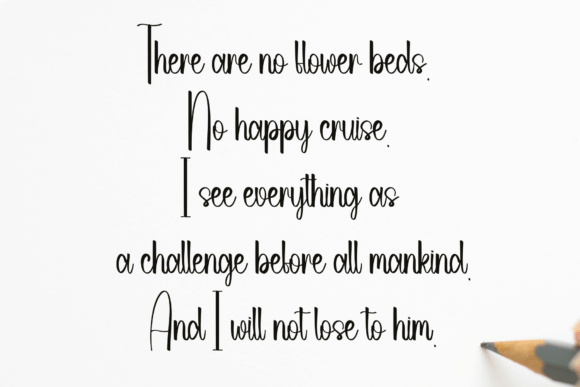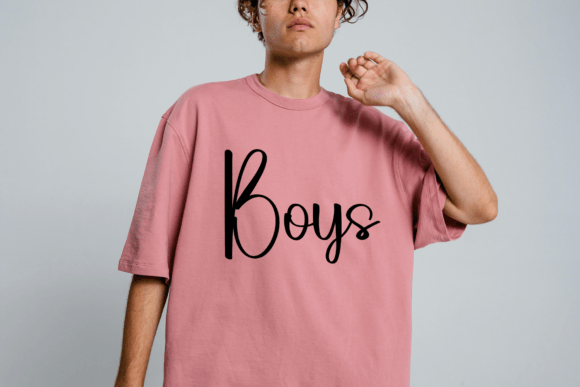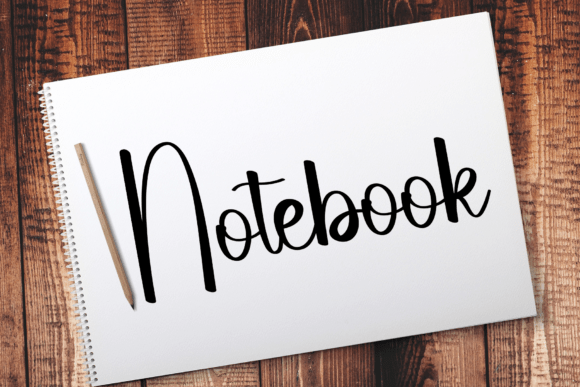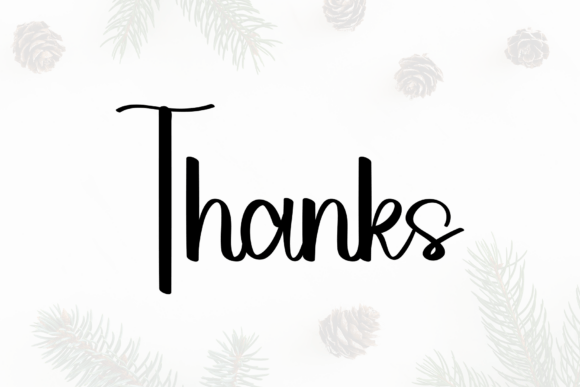
Bulky Valentine Font: Add a Touch of Whimsy to Your Designs
Are you looking for a font that can add a sweet and beautiful touch to your design projects? Look no further than the Bulky Valentine font! This stunning handwritten font features characters that dance along the baseline, giving it a playful and whimsical feel that’s perfect for a variety of design applications.
What Makes Bulky Valentine Font So Special?
Bulky Valentine is a unique and eye-catching font that’s sure to capture the attention of your audience. Its handwritten style gives it a personal and friendly feel, making it perfect for designs that require a touch of warmth and personality. The font’s characters are carefully crafted to dance along the baseline, creating a sense of movement and energy that’s hard to resist.
Whether you’re a designer, crafter, or DIY enthusiast, Bulky Valentine font is a great addition to your font collection. Its versatility makes it suitable for a wide range of projects, from handmade cards and invitations to branding and advertising materials. With Bulky Valentine, you can add a cozy accent to any design project and make it stand out from the crowd.
Key Features of Bulky Valentine Font
- Handwritten style: Bulky Valentine features a beautiful handwritten style that’s perfect for designs that require a personal touch.
- Dancing characters: The font’s characters dance along the baseline, creating a sense of movement and energy.
- Cozy accent: Bulky Valentine adds a cozy accent to any design project, making it perfect for handmade cards, invitations, and other crafty projects.
- Versatile: This font is suitable for a wide range of design applications, from branding and advertising to packaging and more.
- Create handmade cards and invitations: Use Bulky Valentine to add a personal touch to your handmade cards and invitations.
- Design beautiful branding materials: Use Bulky Valentine to create eye-catching branding materials, such as logos, business cards, and brochures.
- Add a touch of whimsy to your packaging: Use Bulky Valentine to add a playful touch to your packaging designs.
Tips and Tricks for Getting the Most Out of Bulky Valentine Font
Here are a few tips and tricks for getting the most out of Bulky Valentine font:
- Experiment with different colors and textures: Bulky Valentine looks great in a variety of colors and textures, so don’t be afraid to experiment and find the perfect combination for your design.
- Use it with other fonts: Bulky Valentine pairs well with other fonts, so try combining it with a sans-serif font for a bold and eye-catching look.
Bulky Valentine font is a sweet and beautiful handwritten font that’s perfect for designers and crafters looking to add a touch of whimsy to their designs. With its dancing characters and cozy accent, this font is sure to capture the attention of your audience and make your designs stand out from the crowd. So why wait? Download Bulky Valentine font today and start creating your own unique and eye-catching designs!